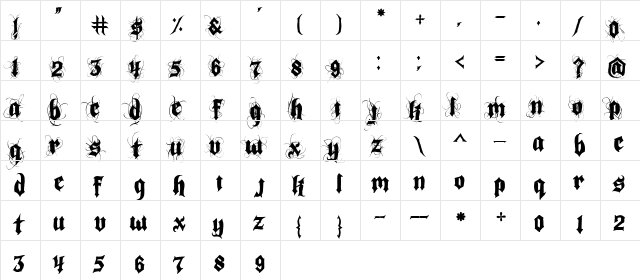
Indoctrine Indoctrine
| Foundry | Jordan Lloyd |
| Designer | Jordan Lloyd |
Design Context for Indoctrine Typeface
Indoctrine is a composed and adaptable typeface that performs quietly and consistently across a wide range of design contexts.